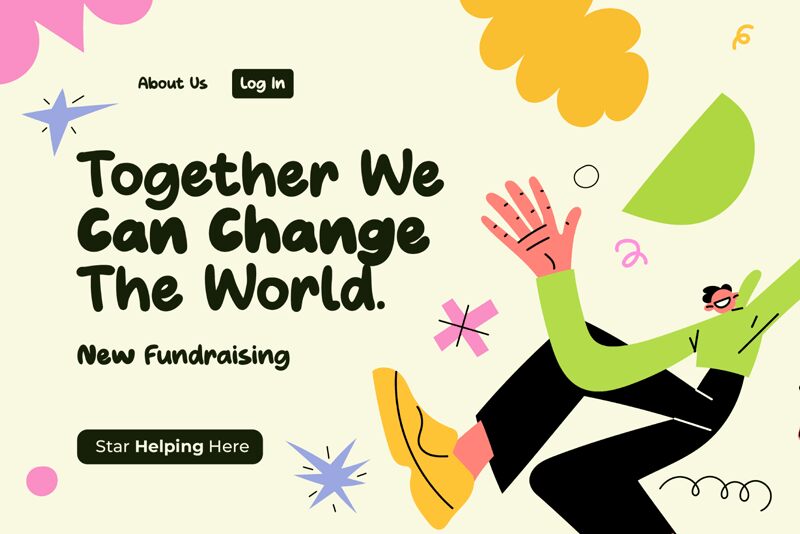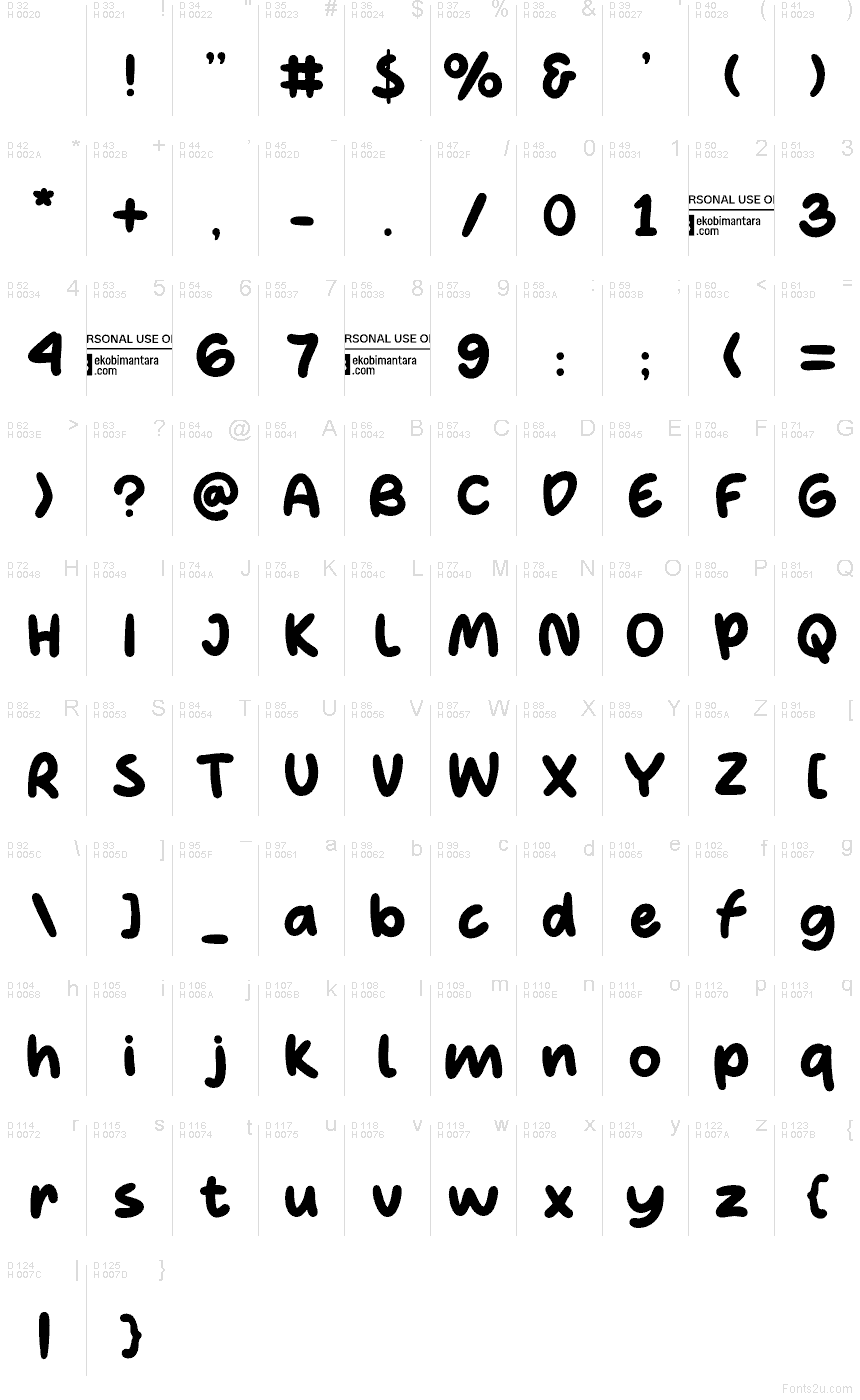
Kidmania Trial Regular
Kidmania font by Eko Bimantara is a free comic display typeface that feels like it was drawn with a thick, inky marker on a classroom whiteboard. Rounded shapes, bouncy letter heights, and soft, squishy curves give it an instant sense of play, without slipping into chaos or becoming hard to read. It’s bold enough to grab attention, yet the friendly rhythm between letters keeps text feeling approachable and fun.
Using Kidmania, you can bring energy to children’s book covers, birthday invitations, school posters, toy packaging, YouTube kids’ thumbnails, and playful brand logos. This free font shines at larger sizes where its chunky outlines and smooth curves can really pop. For body copy or supporting text, pair Kidmania with a clean, simple sans serif to keep layouts readable while letting the headline carry all the character.